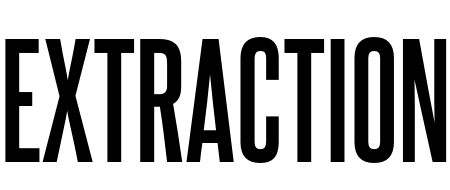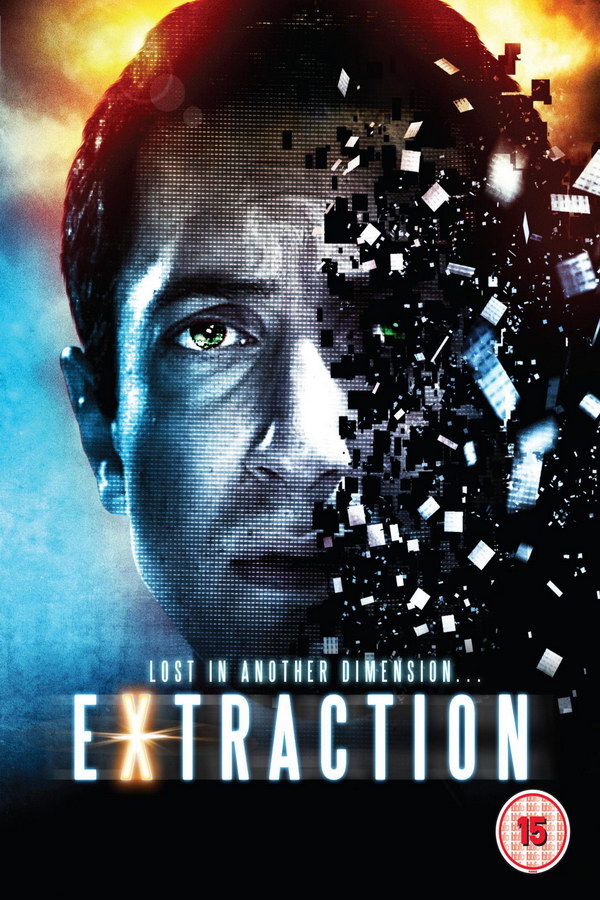
Extraction Font
CrimeExtraction is a 2012 science-fiction drama film directed by Nir Paniry. The movie follows a scientist who invents a machine capable of extracting and viewing people's memories and uses it to investigate a man's mind to uncover the truth about a crime.